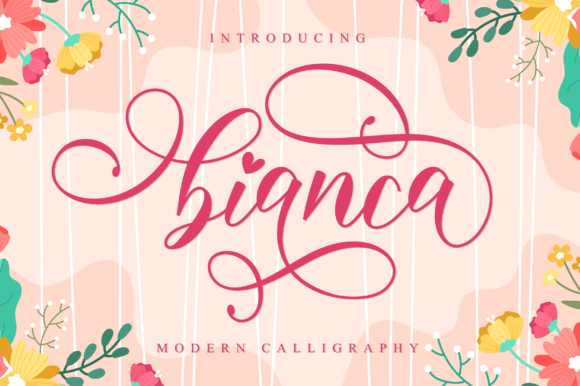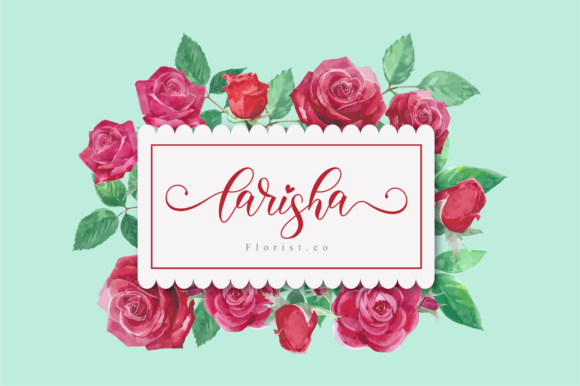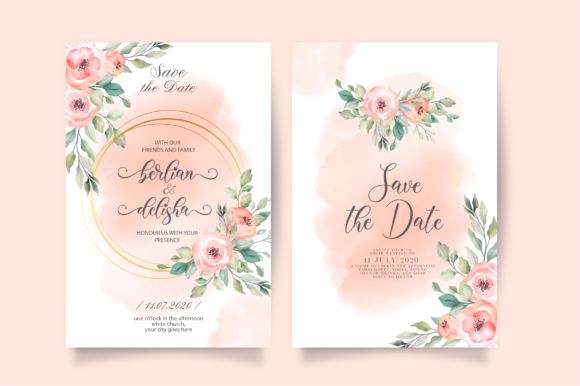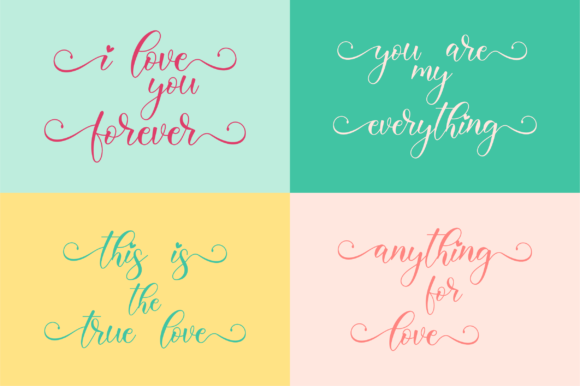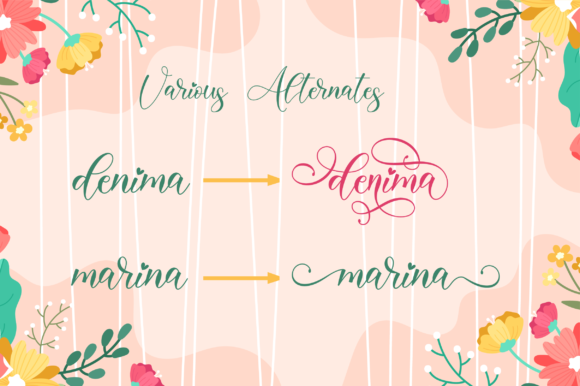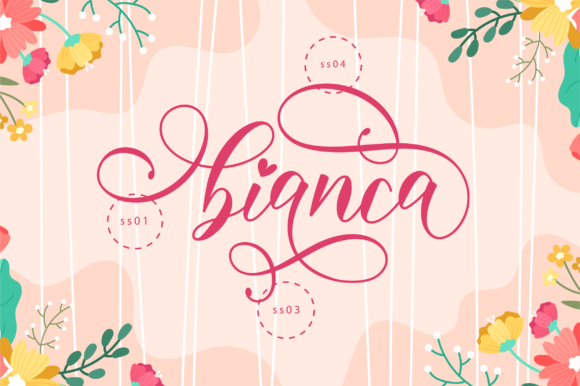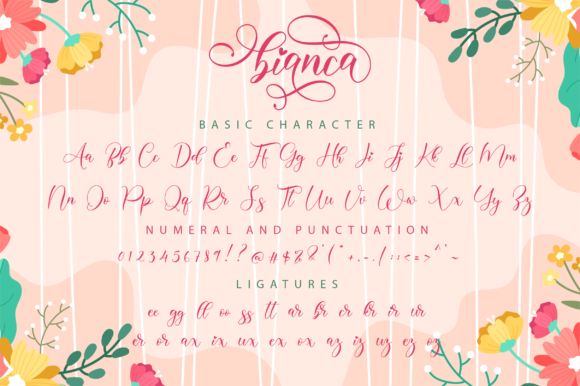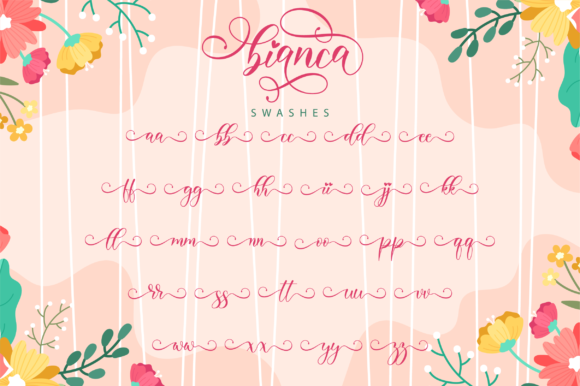
Bianca Script Font
About Bianca Script Font
Bianca is a beautiful and elegant script font. Its modern and classy look makes it the perfect font for creating outstanding DIY projects!